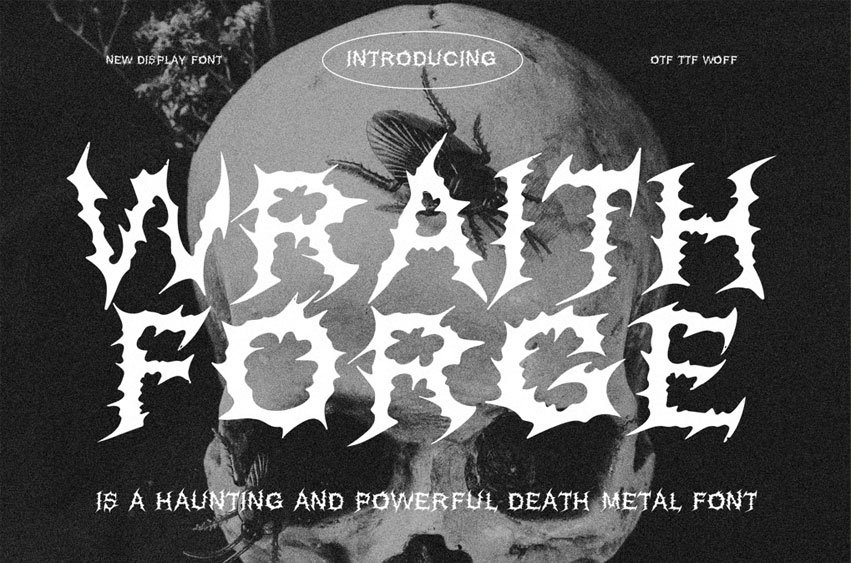
Wraithforge Font is a haunting and powerful death metal font that embodies the chilling presence of spirits and the relentless forging of dark forces. The font features sharp, angular lines and eerie, ethereal details, giving it an otherworldly, ghostly appearance.
The harsh, jagged edges of the letters evoke a sense of aggression, while the intricate, almost spectral elements add a touch of haunting mystery.